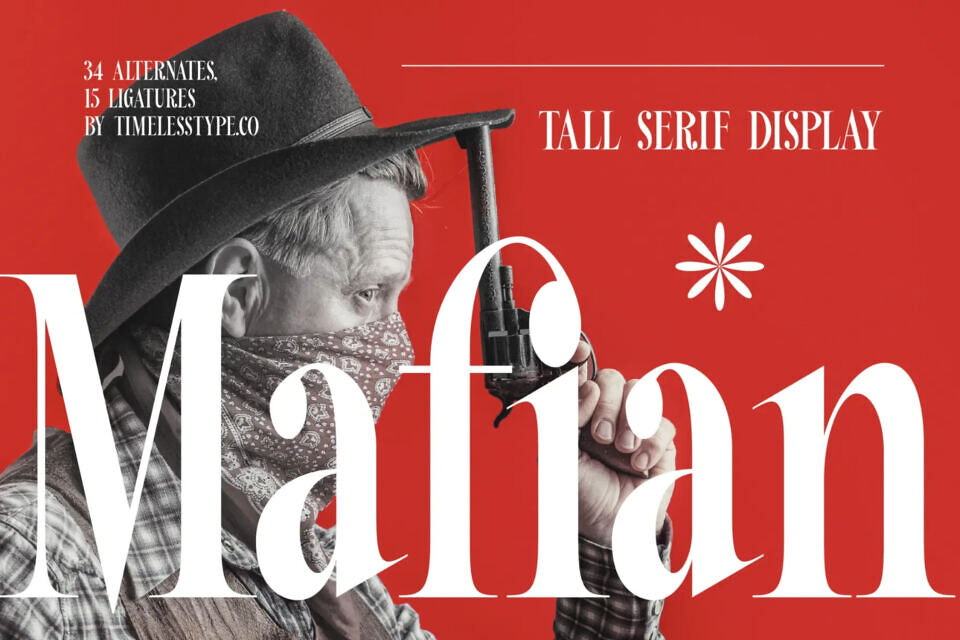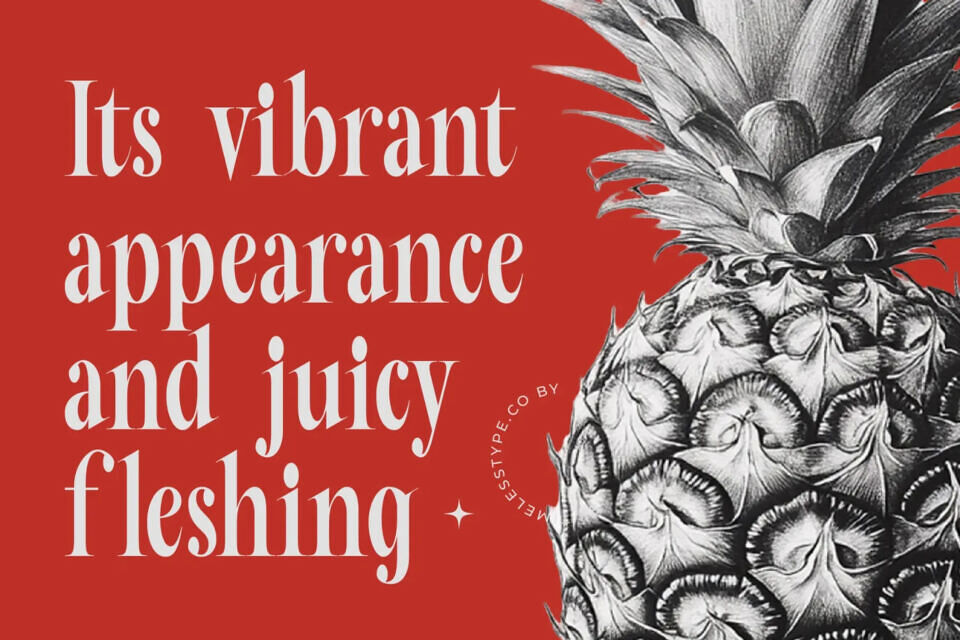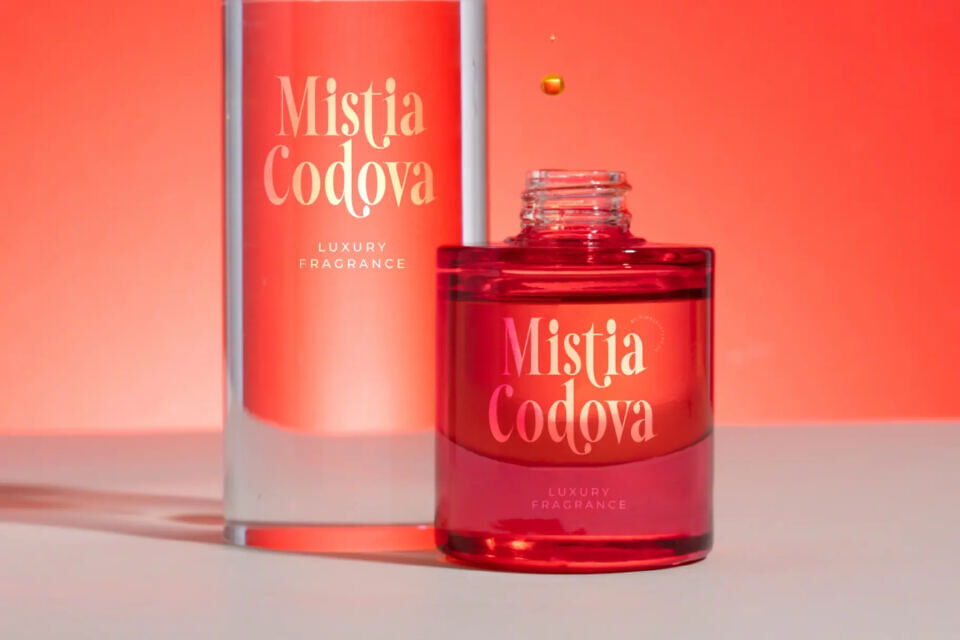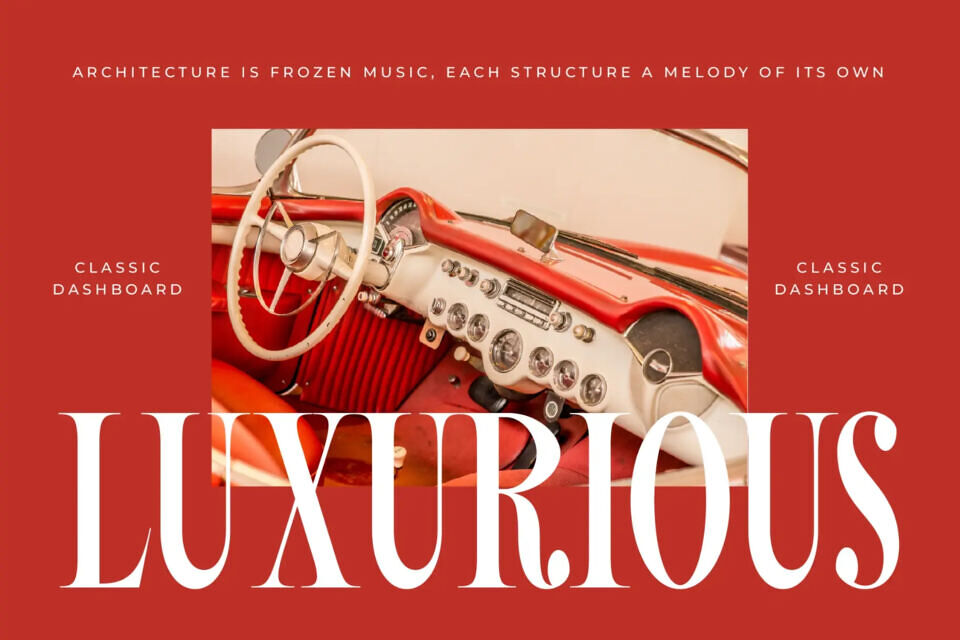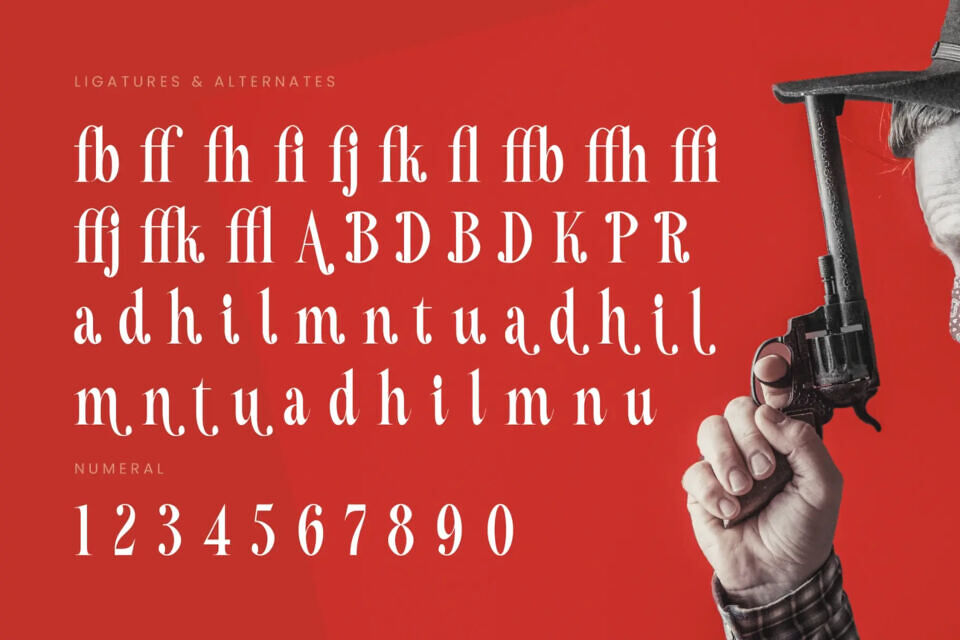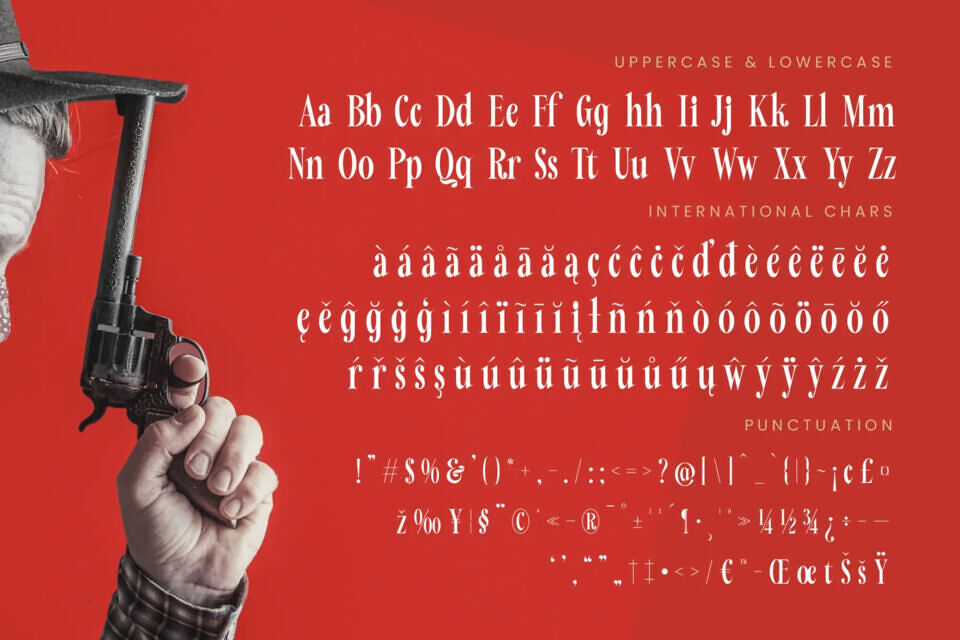
Mafian Font
Elevate your visual narratives with the powerful and distinctive aesthetic of Mafian, a Tall Serif Display font. This high-contrast display serif font commands attention with its elegant, elongated forms and sharp, refined serifs.
Perfectly suited for applications demanding a touch of grandeur and sophistication, Mafian excels in luxury branding, high-end packaging, and editorial design. It is ideal for crafting compelling magazine layouts, fashion communications, and any project where a memorable headline or impactful logo is paramount.